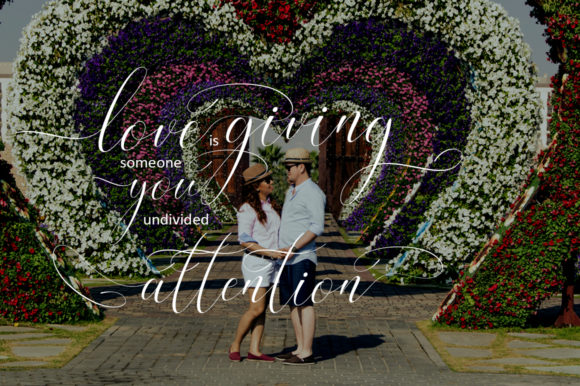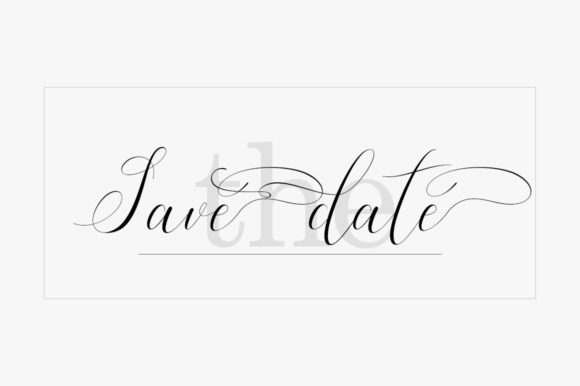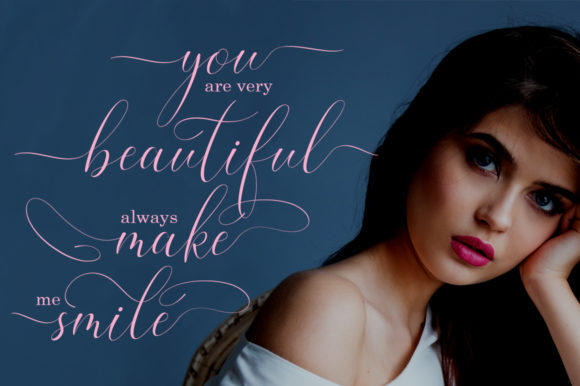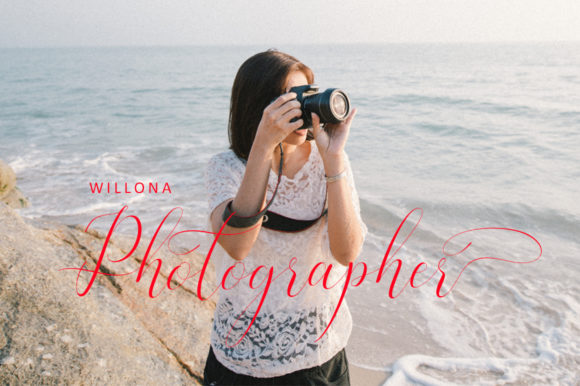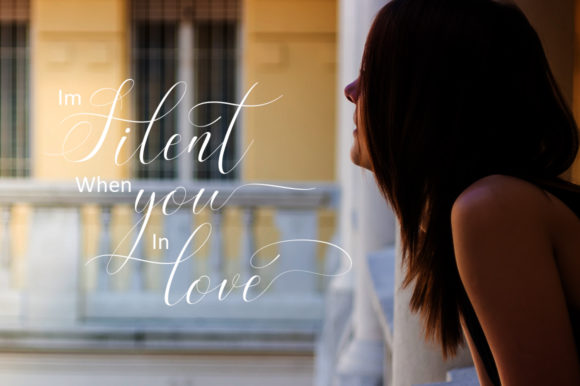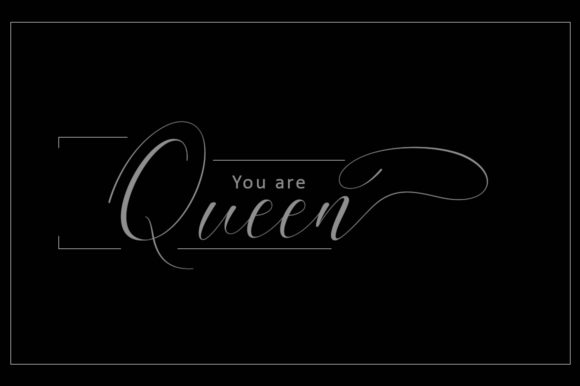
Introduction to Ridiana Font
Ridiana is a gorgeous script font.
It features gorgeous swashes and ligatures that make this script incredibly versatile Whether youโre looking for fonts for Instagram or calligraphy scripts for DIY projects, Ridiana will turn any creative idea into a true piece of art.
Key Features of Ridiana Font
Why Choose Ridiana Font?
Ridiana Font offers exceptional quality and versatility, making it a valuable addition to your design toolkit. Whether you’re creating for personal projects or commercial use, Ridiana Font delivers professional results.